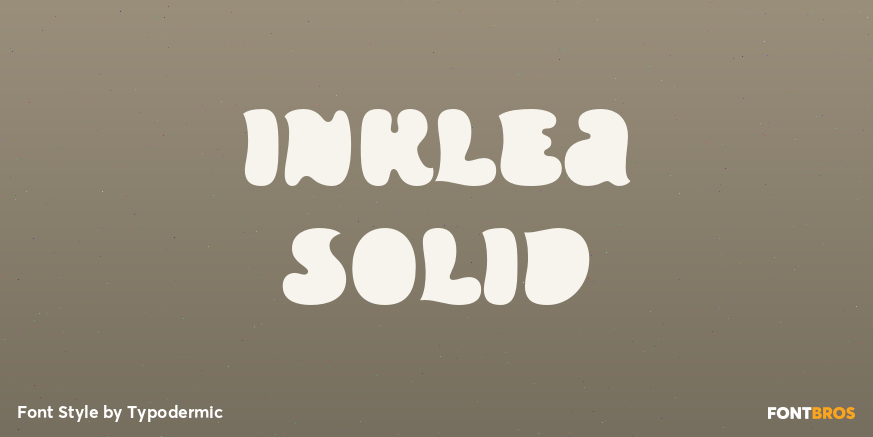
Inklea Solid
Buy NowInklea Solid is the foundation of the family: complete, counterless silhouettes shaped as broad, rounded capitals, with a single corner interrupting each otherwise flowing outline. It supplies the full base forms used beneath Inklea Shine and the shapes from which Inklea Slick's highlight cutouts are removed. On its own, Solid gives the design its flattest and most direct appearance, without reflective detailing.
Use Inklea Solid for appliqué names, felt nursery banners, quilt lettering, backpack patches, cut-paper signs, adhesive vinyl and foam lettering. Its sealed interiors keep every capital in one piece, eliminating separate centers that must be cut, positioned or saved. The weighty shapes also suit storybook titles and concise confectionery or children's-product headlines, especially at sizes large enough for the unusual silhouettes to read clearly.